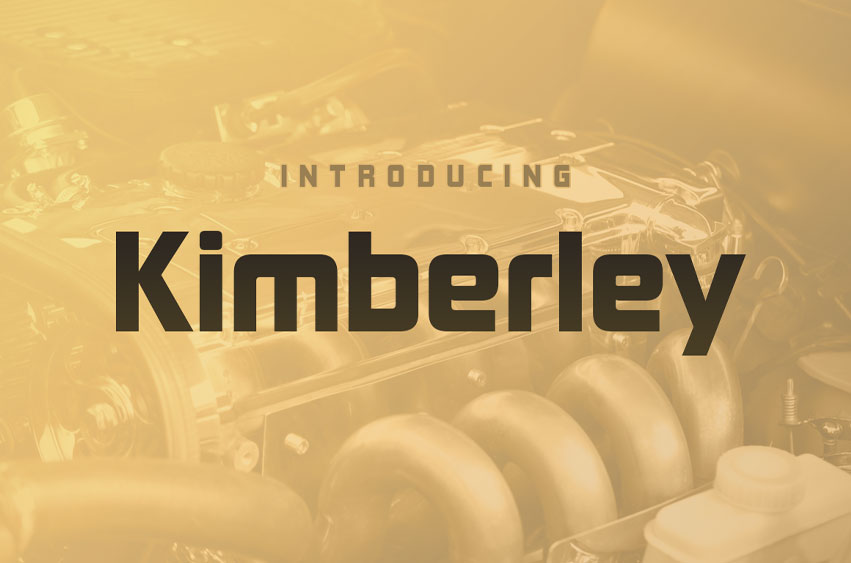
Kimberley Font
Kimberley Font was inspired by several 1970’s corporate/industrial logotypes.
This clean and slightly retro sans serif font is free from Typodermic.